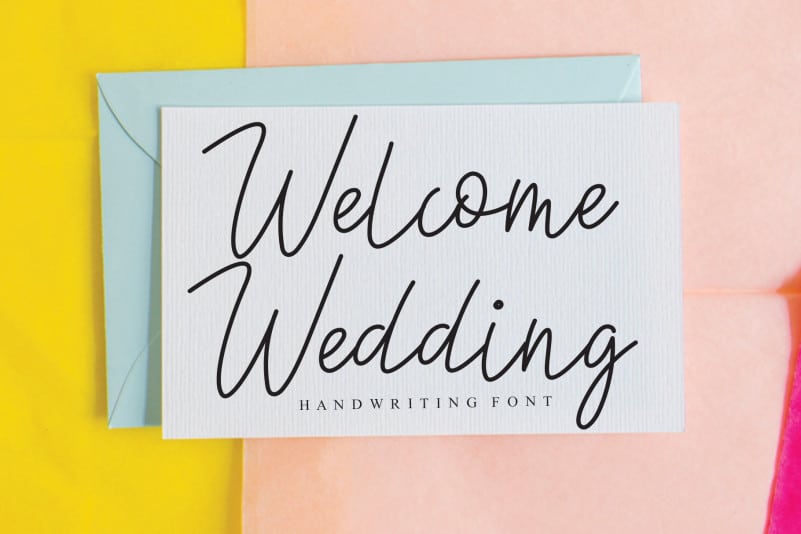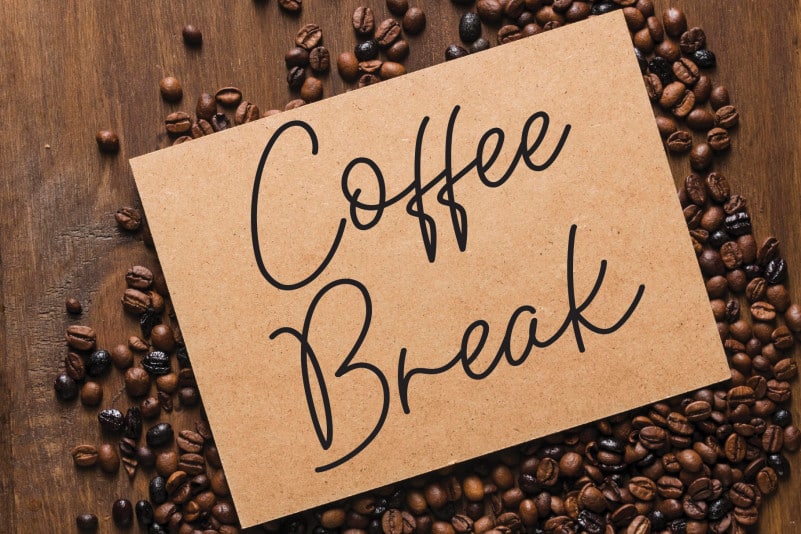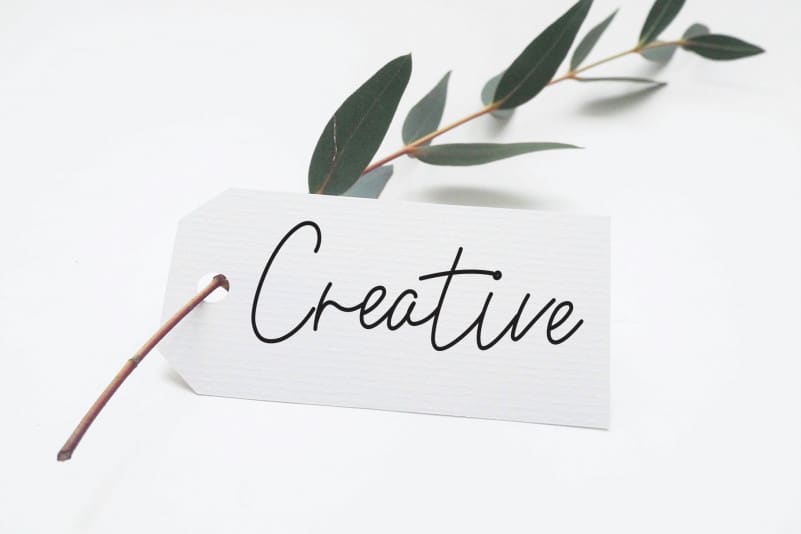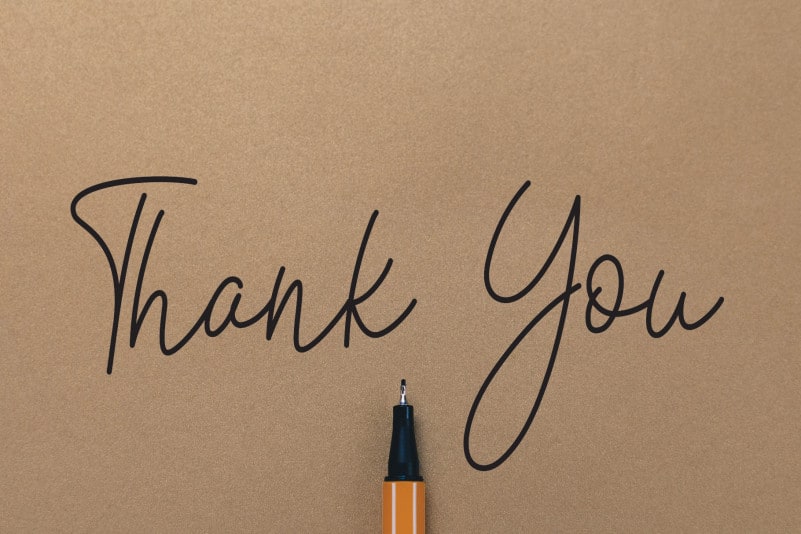
Star Awesome Handwritten Font
Introducing Star Awesome Handwritten Font. The latest style letters are perfect for wall displays, wedding invitations, social media post logos, advertisements, product packaging, product designs, labels, photography, watermarks, invitations, stationery, and any project that requires taste handwriting.